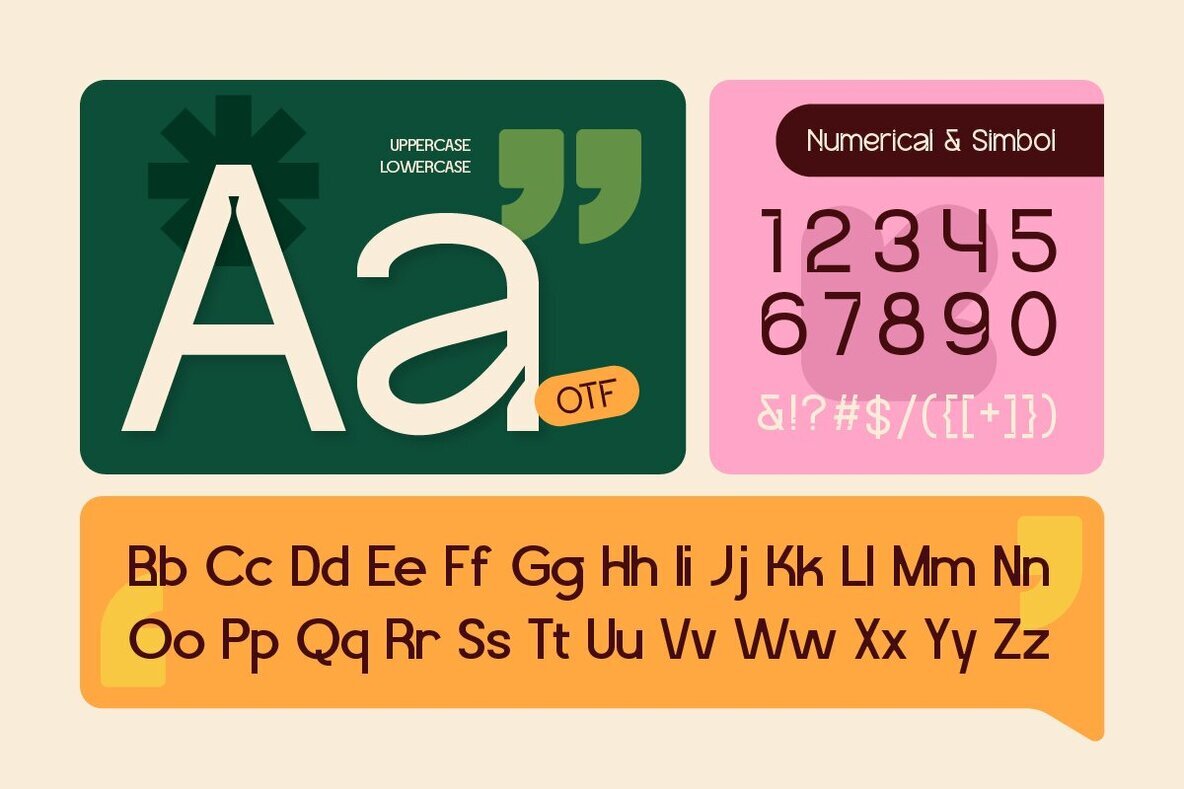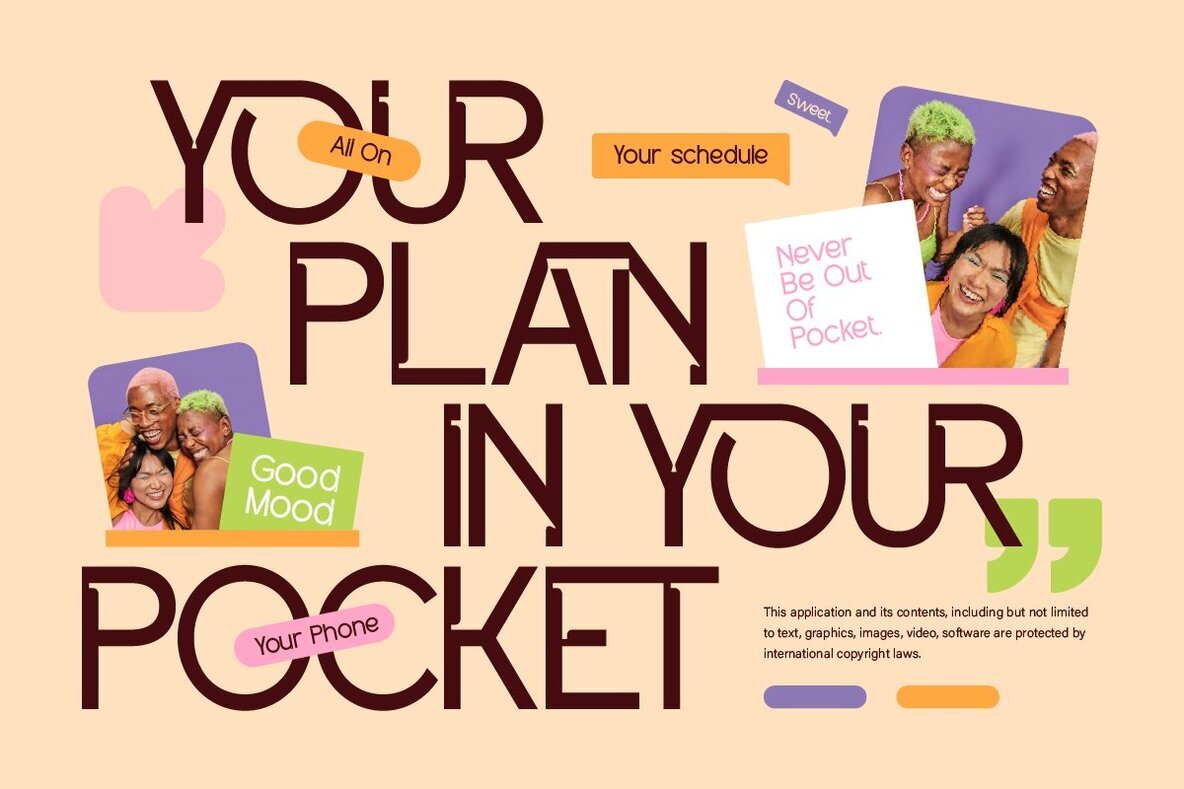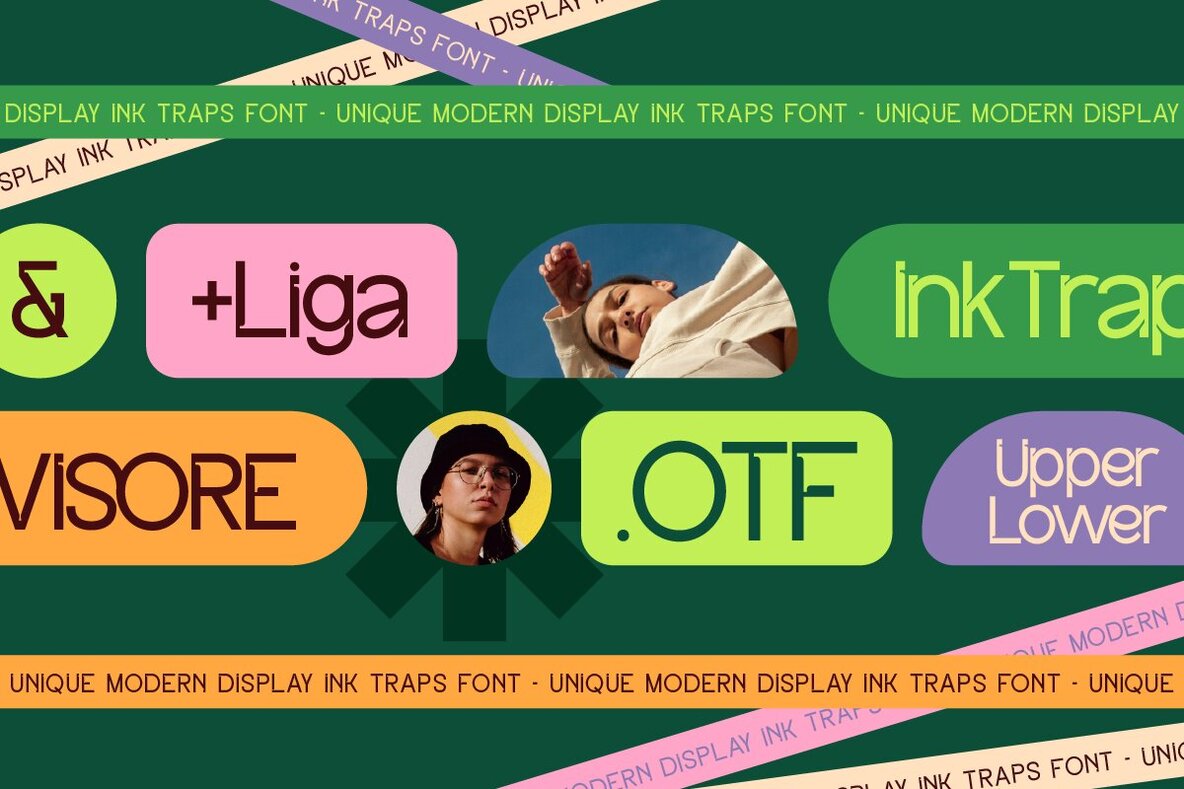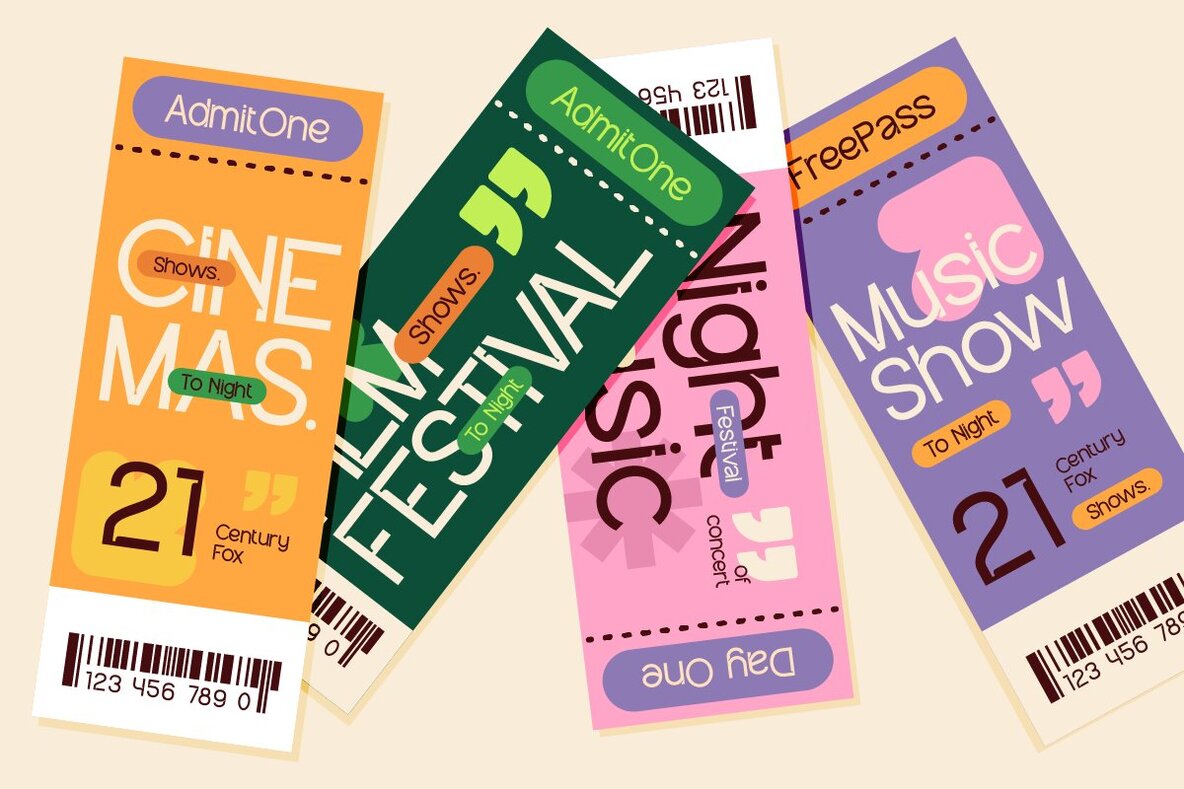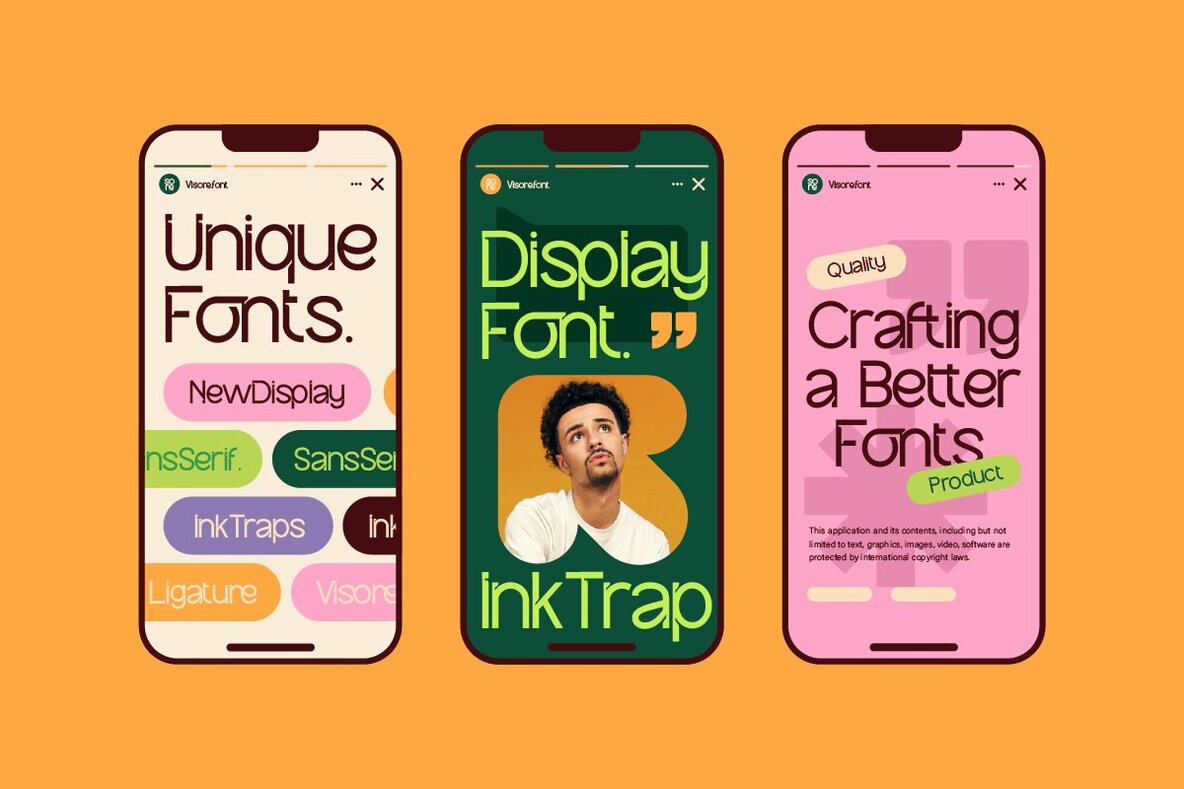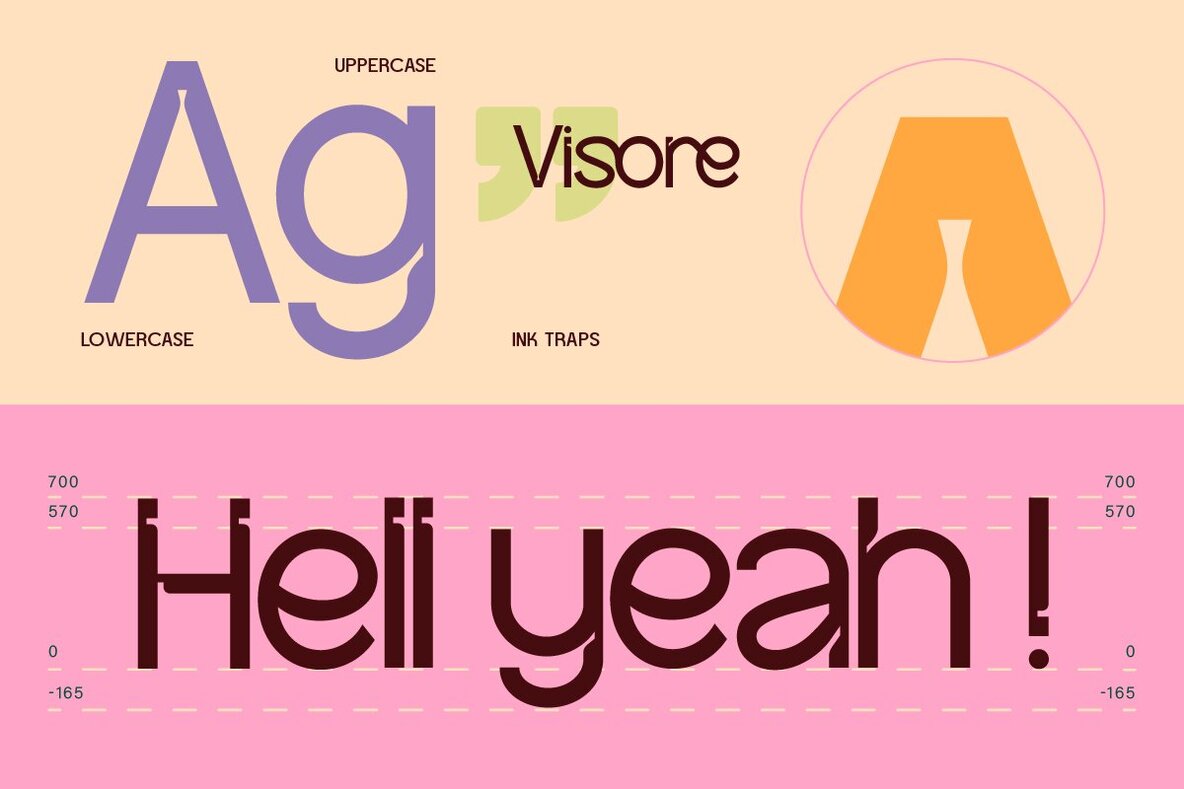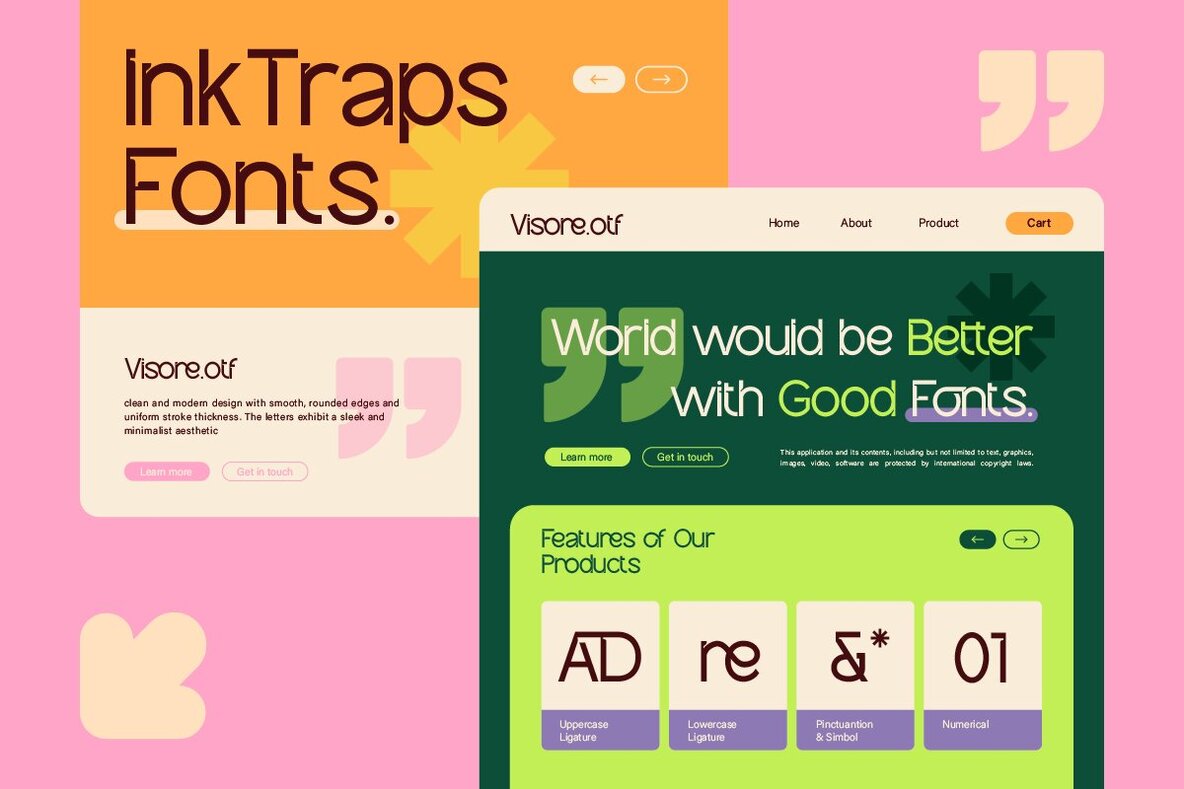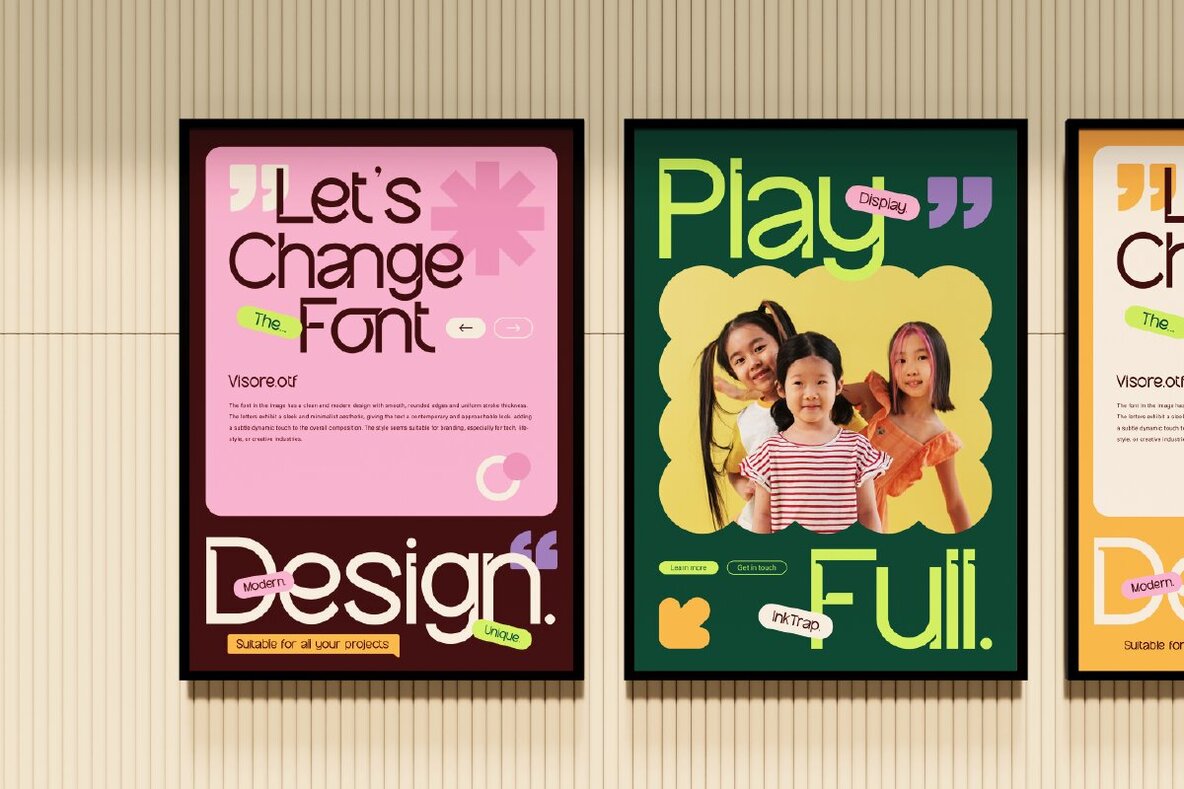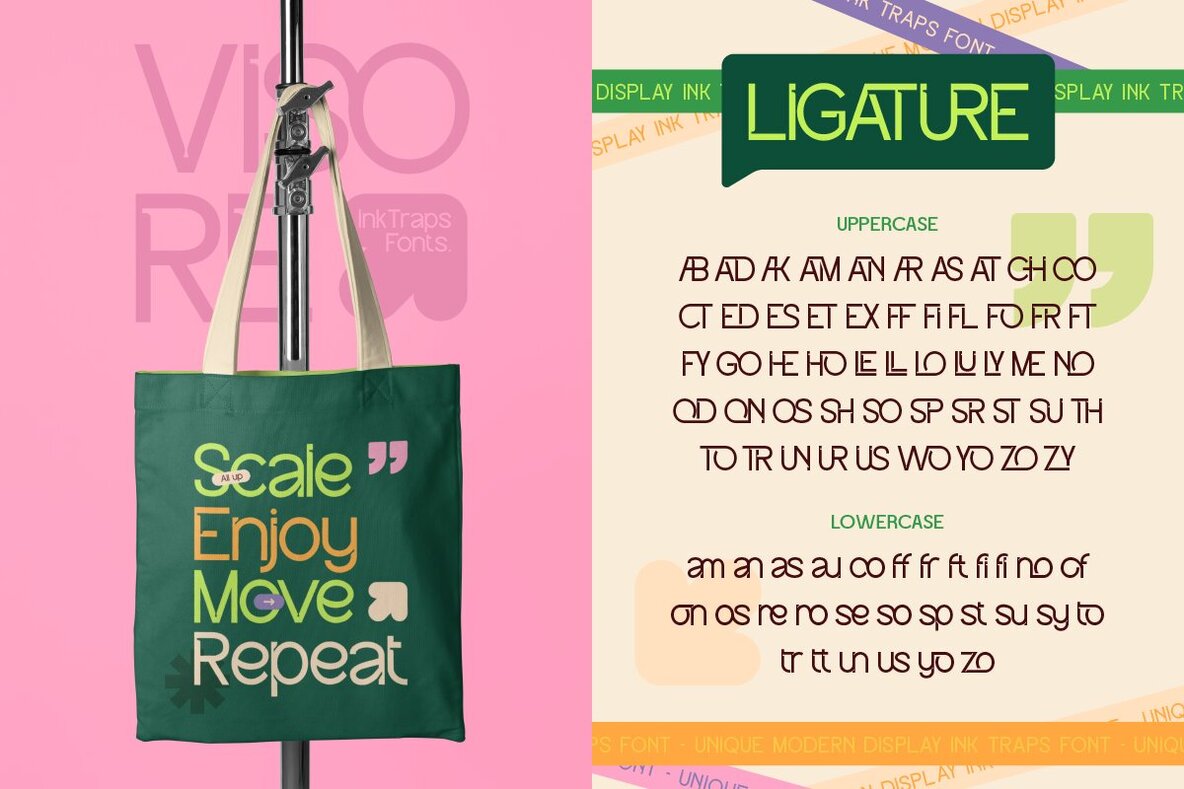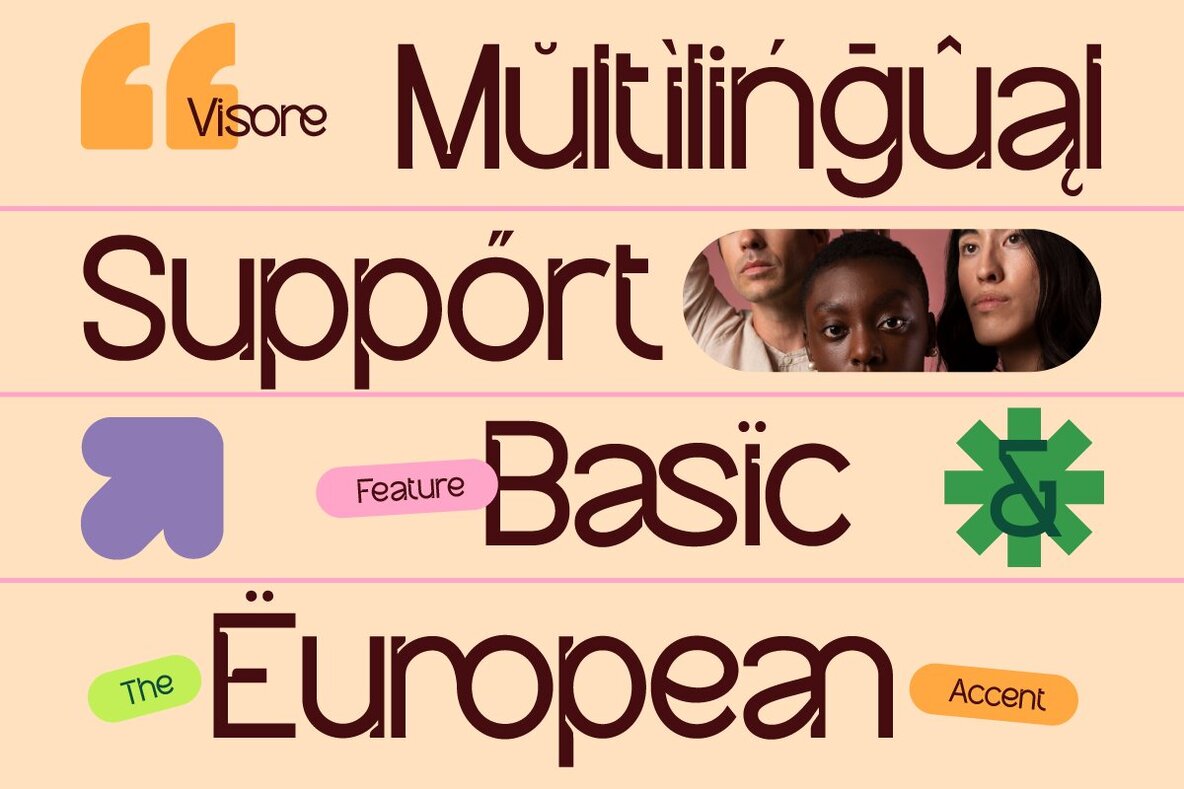
Visore Font
Visore
Introducing, Visore, a sleek, simple and unique style. Visore is a minimalist sans serif typeface designed to make a visually appealing. This typeface also captures the essence of ink trap aesthetic and make it fresh and modern look. With support for multiple languagees and ligatures make your project design perfect for global brand or industry. Ideal fot web design, poster, editorial design and many more. Features: